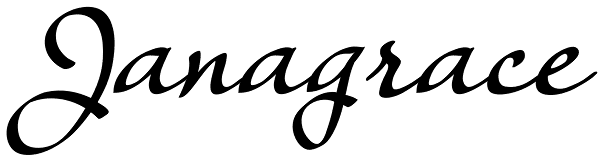
Janagrace
Free flowing elongated script, connotes femininity. Suitable for applications such as captions, fashion headlines, packaging, invitations, cards, posters, ads, book jackets and covers.
Janagrace Swash
Janagrace OT Swash